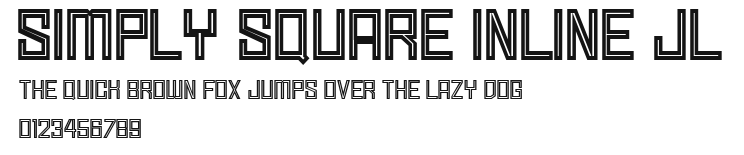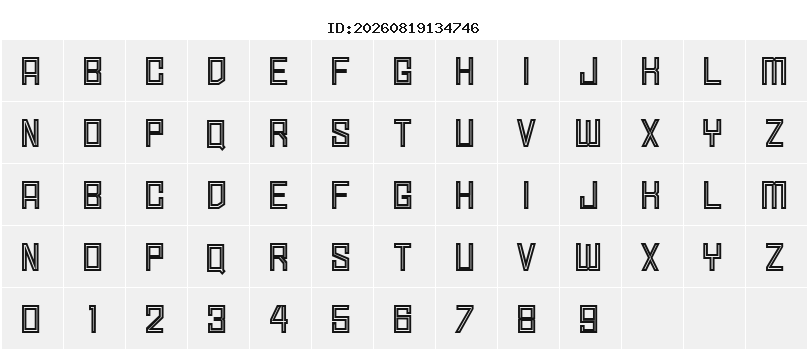
• Font Name: Simply Square Inline JL
• Full Font Name: Simply Square Inline JL
• Designer: Jeffrey N. Levine
• Manufacturer: Jeff's Fonts & Dingbats
• Description: "Simply Square Inline JL".
About Simply Square Inline JL.ttf
Simply Square Inline JL.ttf is a modern, elegant sans-serif font designed for ultimate readability and visual harmony. Perfect for branding, headlines, web design, and print materials.